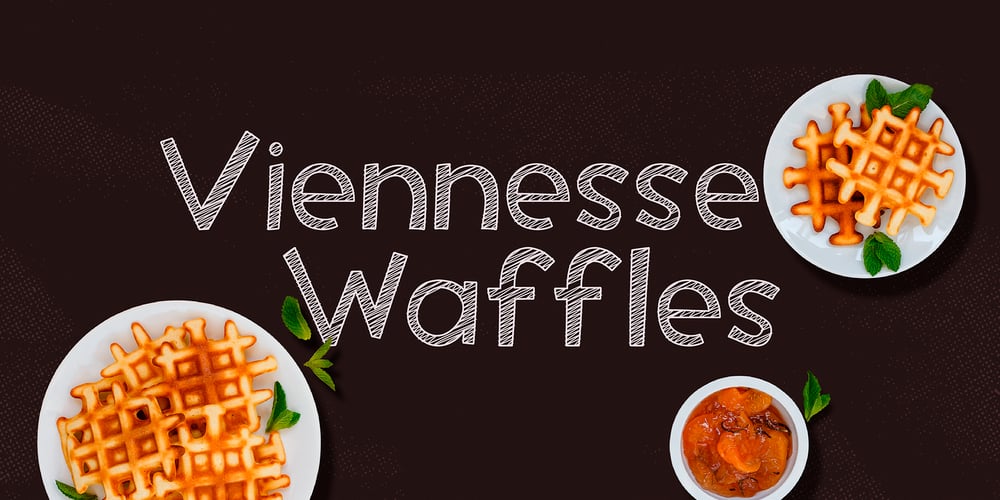
Viennese Waffles
Viennese Waffles font
Viennese Waffles Font Family was designed by Anastasia Kuznetsova and published by Anastasia Kuznetsova. Viennese Waffles contains 1 styles and family package options. Say hello to Viennese Waffles!! 🙂 A nice, wobbly, playful pencil font with a handwritten inscription-with a fine texture built right into it!! Great for outstanding quotes, playful branding, children’s books, fancy greeting cards, cooking recipes, menu design and more!Font Features A-Z; character set a-z; 1 language (English); numbers and punctuation marks, symbols A font containing uppercase and lowercase letters, numbers, and a wide range of punctuation marks.Fonts can be opened and used in any software that can read standard fonts, even in MS Word. No special software is required, and to get started.It is recommended to use it in Adobe Illustrator or Adobe PhotoshopMade with love and magic ♡Thank you for checking it out and feel free to send me a message if you have any questions!~ Anastasia